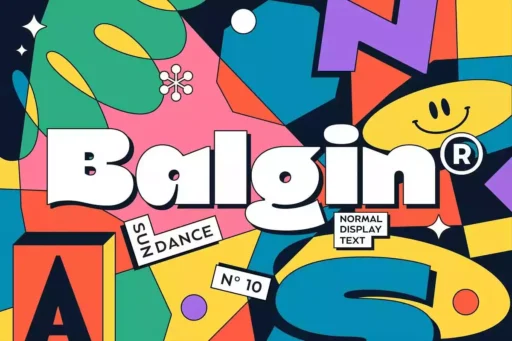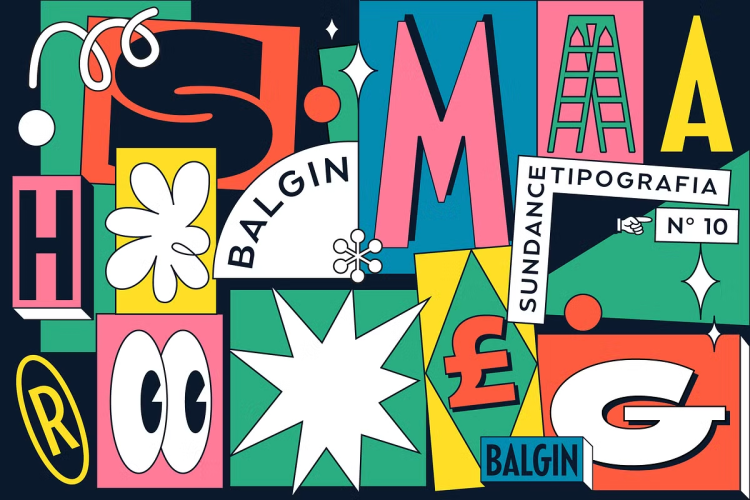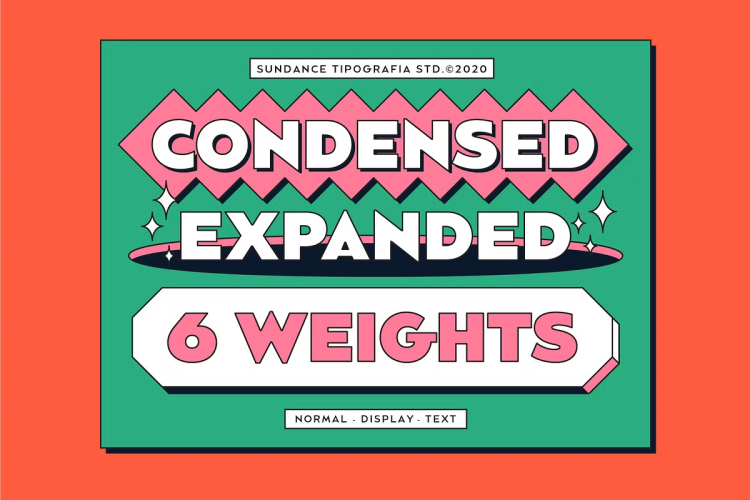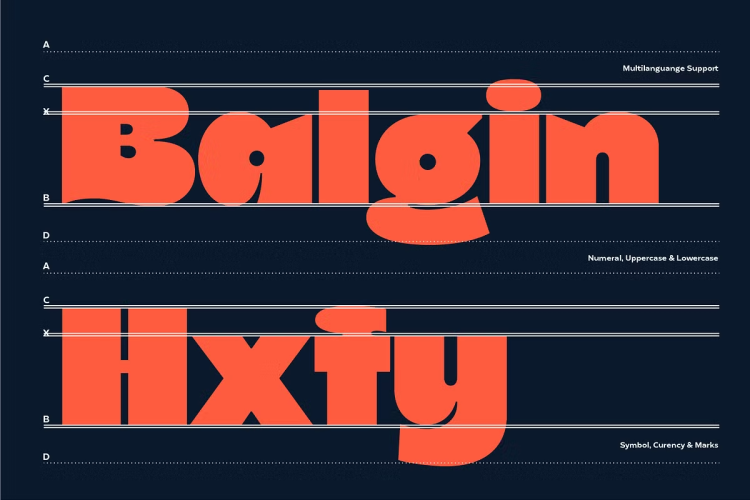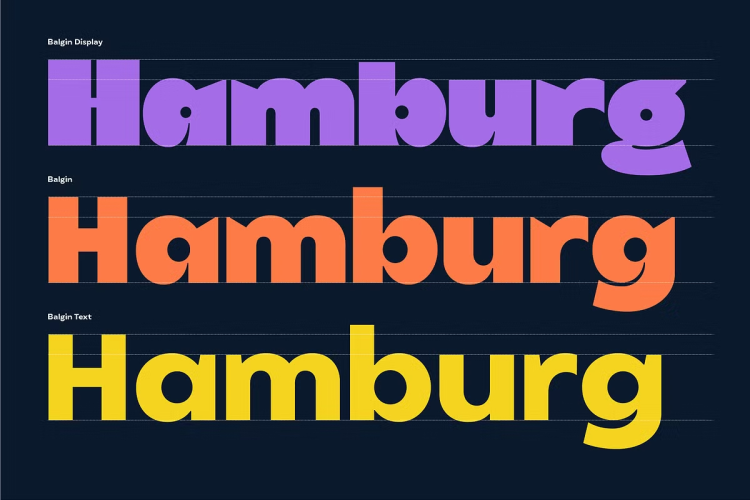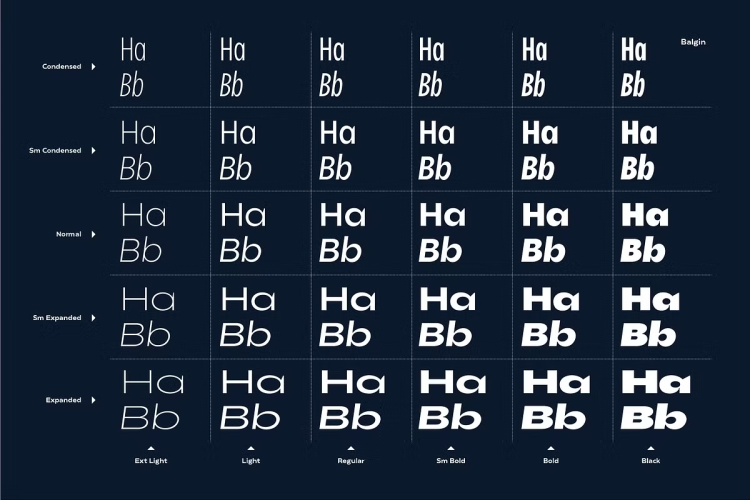
Balgin Font
Balgin Font Family is a retro display font by Sundance Tipografia that captures the essence of the 90s decade, which was all about Doc Martens, Game Boys, and cartoon colors. The design base of Balgin is geometric shapes such as triangles, squares, and circles, with some of the display characters slightly altered. For example, the stems of ‘R’ and ‘K’ seem to be more lively, and the tail of ‘g’ seems less distinct.
The Balgin Font Family is available in three styles: Display, Normal, and Text, with six different styles. The Normal style is also available in five different widths. Due to this, Balgin is ideal for use in various design works, be it a strong headline or a delicate text box. With its retro appeal and versatility, the Balgin Font Family is perfect for adding a hint of the ‘90s and contemporary style to your designs.
Balgin Font is a Display Fonts font that brings a professional and versatile look to your projects. Balgin Font Family is a retro display font by Sundance Tipografia that captures the essence of the 90s decade, which was all about Doc Martens, Game Boys, and cartoon colors.